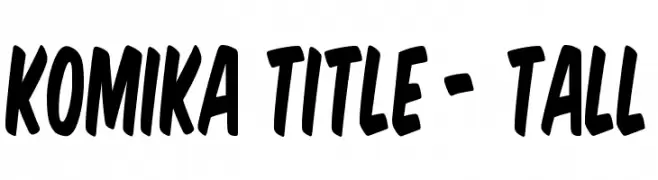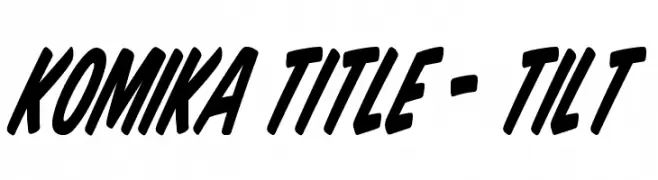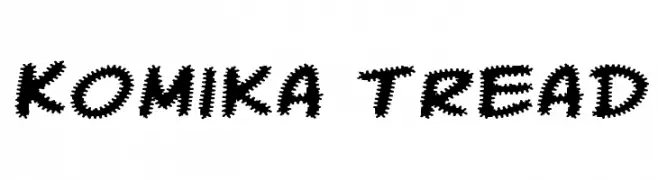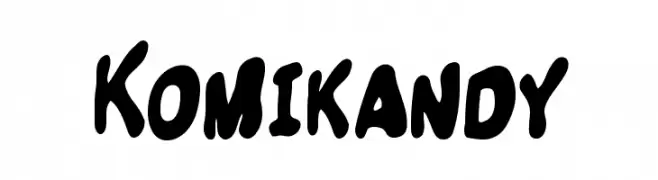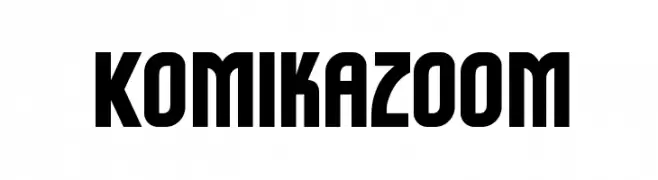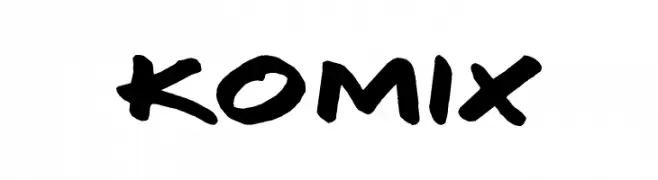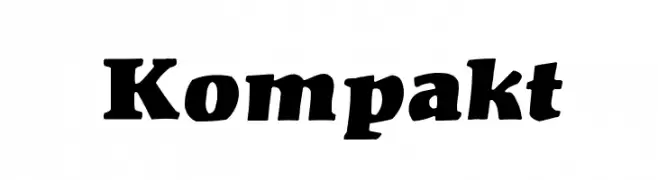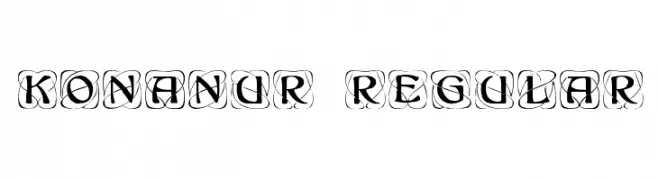
A bold, playful font with tall, narrow, and slightly slanted characters.
A bold, slanted font with a playful and dynamic style.
A bold, playful font with wide, rounded letters and a dynamic slant.
A bold, playful font with a comic book style and outlined characters.
A bold, jagged font with a playful and energetic style.
A bold, cartoonish font with a playful, hand-drawn style.
A bold, geometric font with a playful, comic-inspired style.
A bold, playful font with a comic book style and hand-drawn appearance.
A bold, modern font with strong strokes and a vintage touch.
An ornate, decorative font with bold characters enclosed in swirling frames.